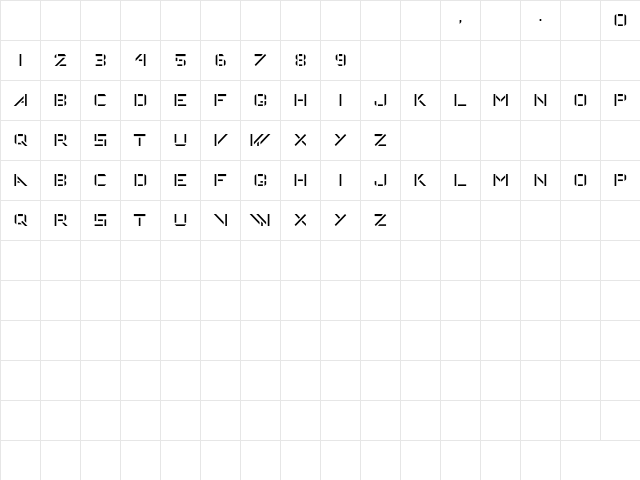
P22 DeStijl Stencil Regular
Design Context for P22 DeStijl Stencil Typeface
P22 DeStijl Stencil has the rough pragmatism of spray-painted stencil signage, adding a raw, street-level authenticity to designs.
A strong choice for packaging that needs edge, warehouse aesthetics, and rough-and-ready visual identities.
Pro Tip: Use P22 DeStijl Stencil at large sizes on packaging, posters, or apparel where the stencil cutaways read clearly. Avoid small sizes where those gaps become visual noise.